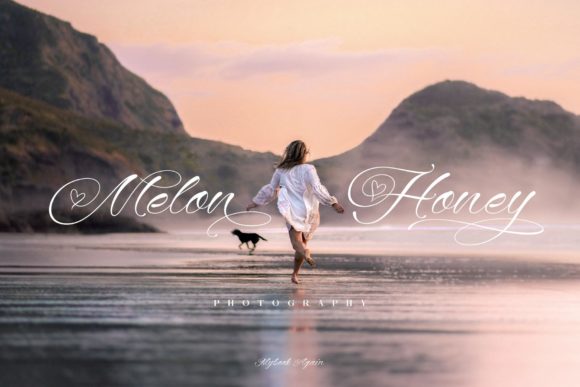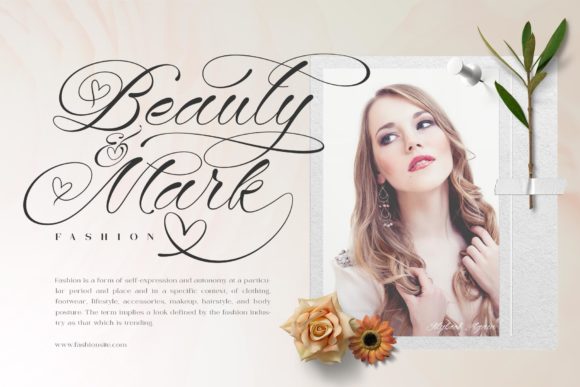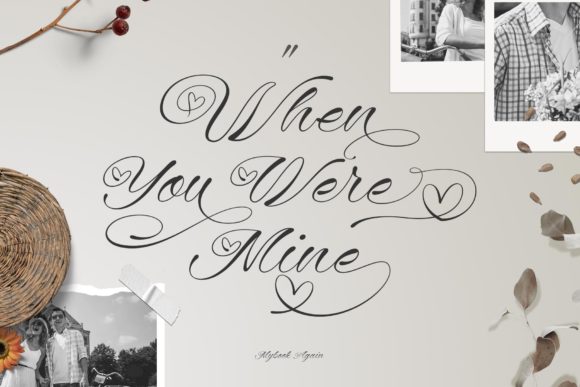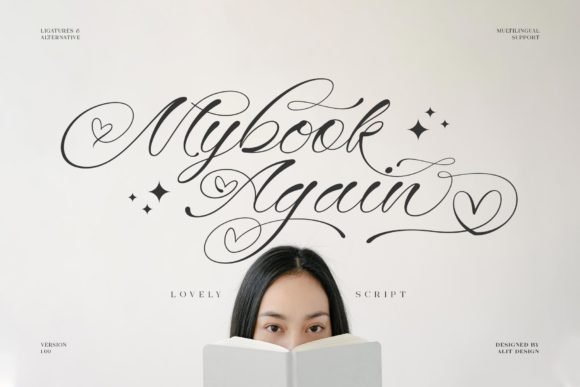
Introduction to Mybook Again Font
Mybook Again feels equally chic and elegant.
It looks beautiful on wedding invitations, thank you cards, quotes, greeting cards, logos, business cards and every other design which needs a customized touch This font is PUA encoded which means you can access all of the glyphs and swashes with ease.